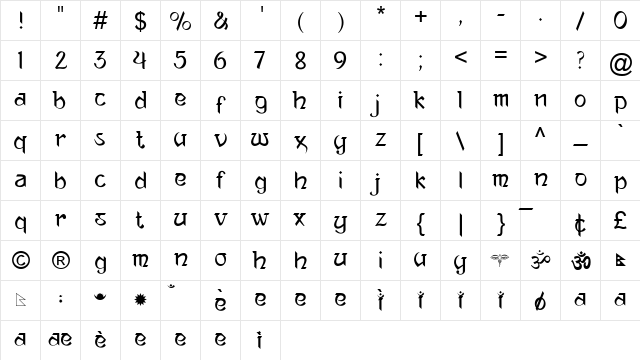
Ananda Neptouch 2 Regular
| Foundry | Ananda K. Maharjan |
| Designer | Ananda K. Maharjan |
Design Context for Ananda Neptouch 2 Typeface
Ananda Neptouch 2 is a composed and adaptable typeface that performs quietly and consistently across a wide range of design contexts.